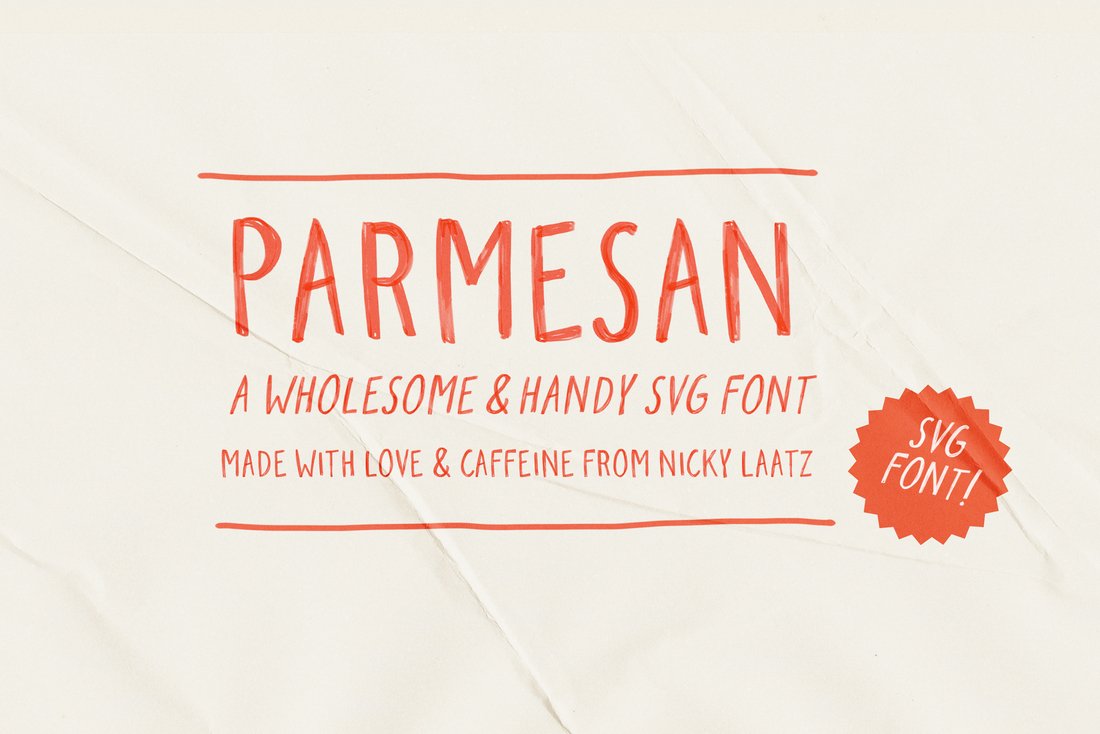
Parmesan SVG & Regular Fonts
Great for Chalkboard designs, greeting cards, quirky branding, menus, invitations, illustrated books and sooo much more!